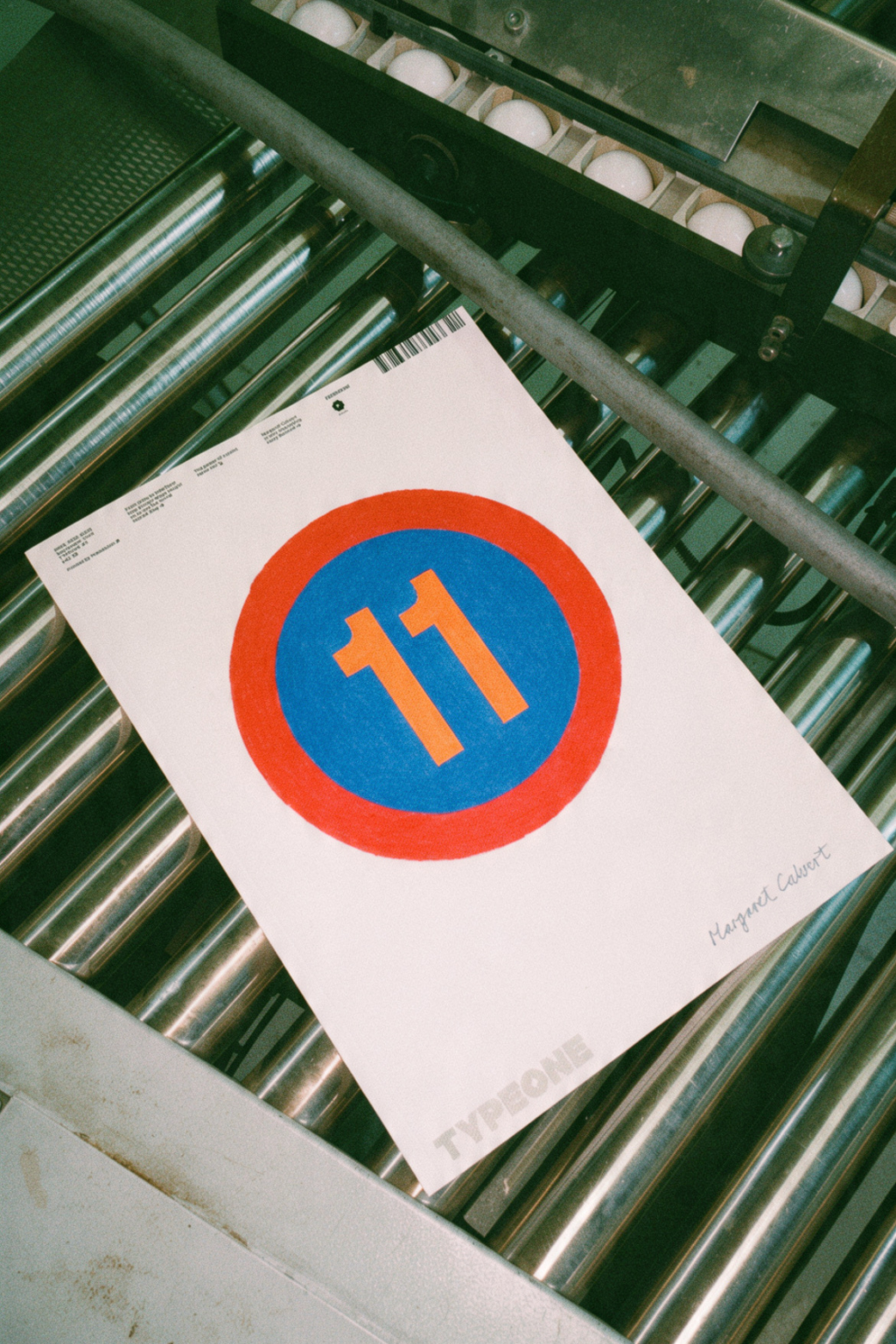
TYPEONE Magazine — Issue 11
The Wayfinding Issue
Every place has something to say. Some signs whisper, some shout, some welcome us in, while others tell us exactly where to go. Together, they shape how we navigate, understand and experience the world around us.
For Issue #11, we turn our gaze to wayfinding, guest edited by DNCO, the London-based branding and wayfinding consultancy led by Patrick Eley and united by a deep understanding of how places feel and why people care about them. Drawing on DNCO’s experience shaping identities and wayfinding systems for destinations around the world, this issue explores wayfinding as more than a practical problem, examining how typographic signs, systems, materials and maps can transform space into place.
The editorials crafted for this issue explore the many voices of wayfinding and the systems behind them. We look at the cultural character embedded within local signs, the universal symbols that help us navigate unfamiliar environments, and the engineering, architecture, perception and behavioural science that allow these systems to work. Along the way, we explore why we trust arrows, how legibility works, how sound can guide us, how signs withstand the physical world and how Google Maps has changed not only the way we navigate, but the way we see our surroundings.
Through conversations with designers, typographers, architects, engineers and makers, TYPEONE Magazine #11 explores how the signs around us guide us, reassure us and quietly shape our sense of place.
DNCO Cover
DNCO is a studio obsessed with place, how it feels, why people care, and how design can create a sense of belonging. Their work spans branding and wayfinding for some of the world’s most ambitious destinations, from the V&A and London Overground to DUMBO and the state of Vermont.
For Issue #11, DNCO, led by Creative Director Patrick Eley, have brought that thinking to paper, creating a visual entry point into an issue that explores the signs, symbols, systems, and structures that help us find our way.
Margaret Calvert Limited Edition Cover + Editorial
Introducing an ultra-limited edition cover (only 1,000 copies ever printed) from one of the most influential designers in the history of road signage and wayfinding.
For this edition, Margaret Calvert has drawn the number 11 by hand in the distinctive visual language of her road signs and typeface, accompanied by her signature—in joy of a system that has become one of the most recognisable examples of wayfinding design in the world. You can also find a special editorial on Calvert at the back of this edition!